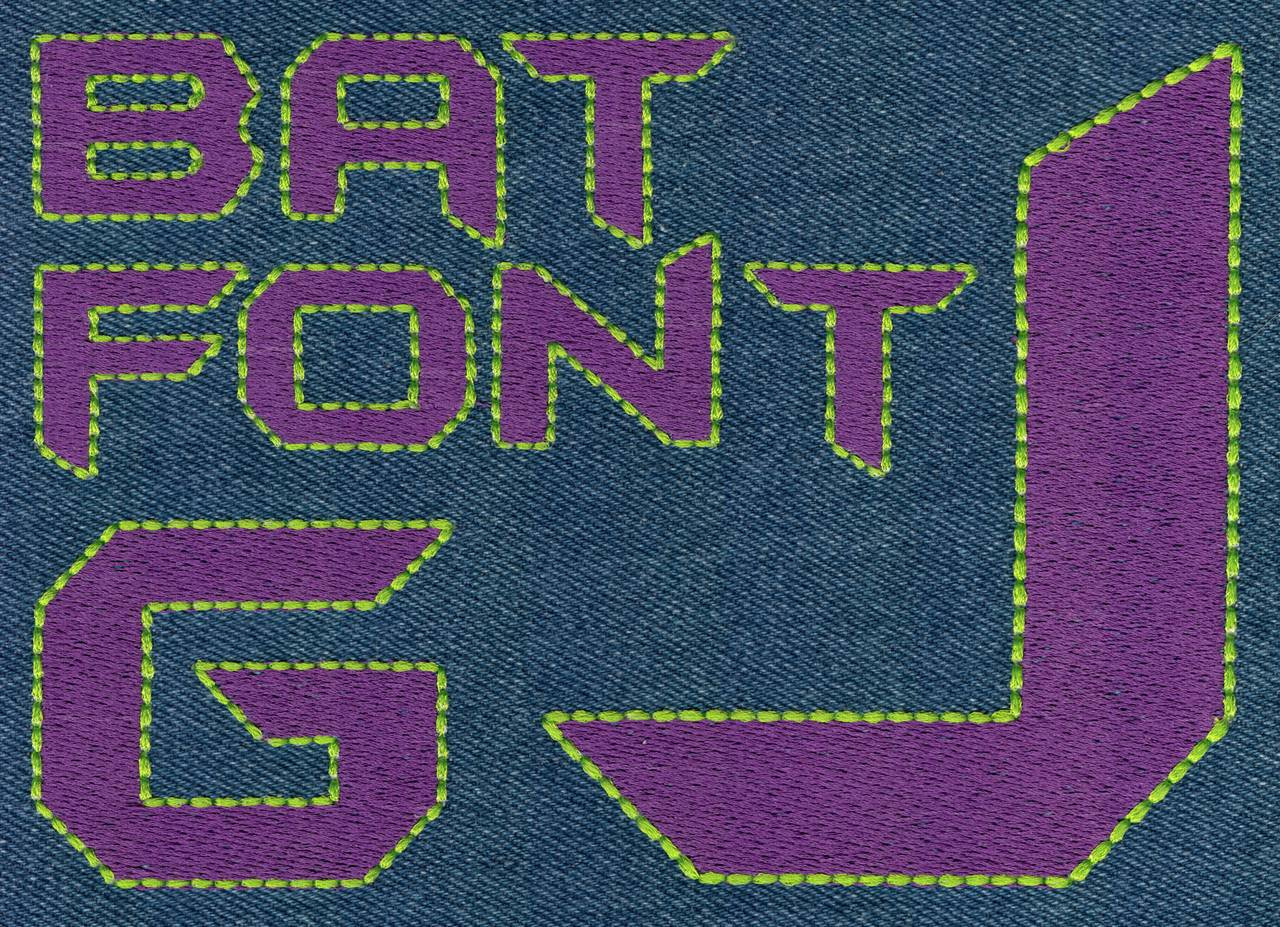
599 Bat Font 2-Color Fill & Floss
Bat Font 2-Color Fill & Floss Font comes in 1", 2", 3" and 4" heights based on the capital "B". All characters are finished in Fill Stitch with Floss Stitch Outlines in two color setup (see Frequently Asked Questions form more info on Floss Stitch). Purchase price includes 26 Capital letters, numbers and six punctuation marks in all sizes.